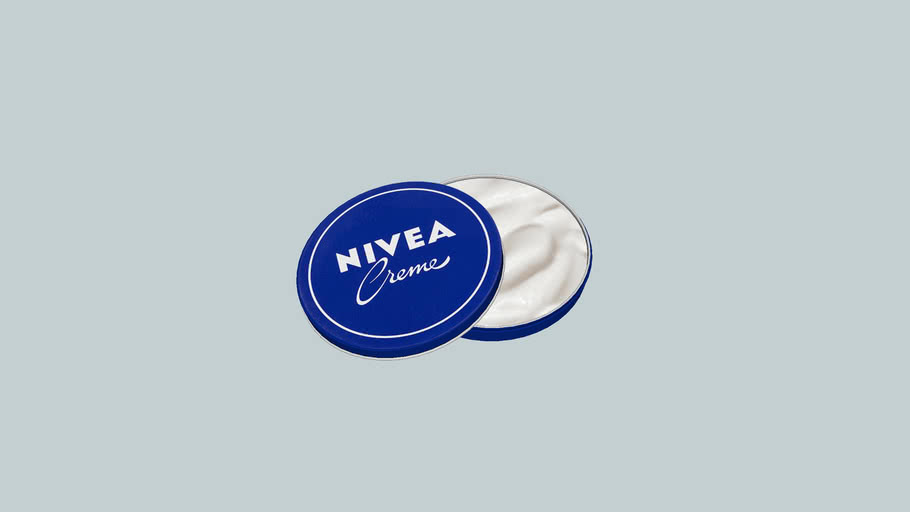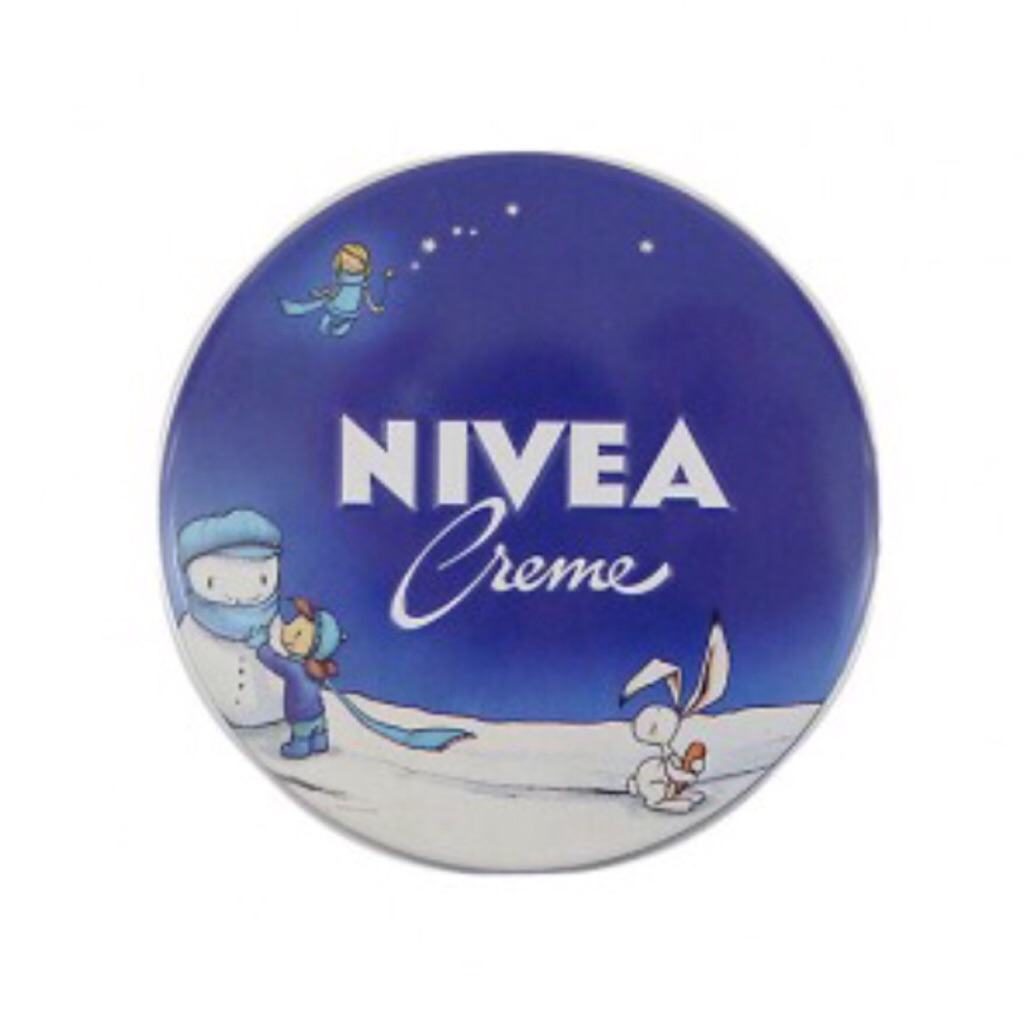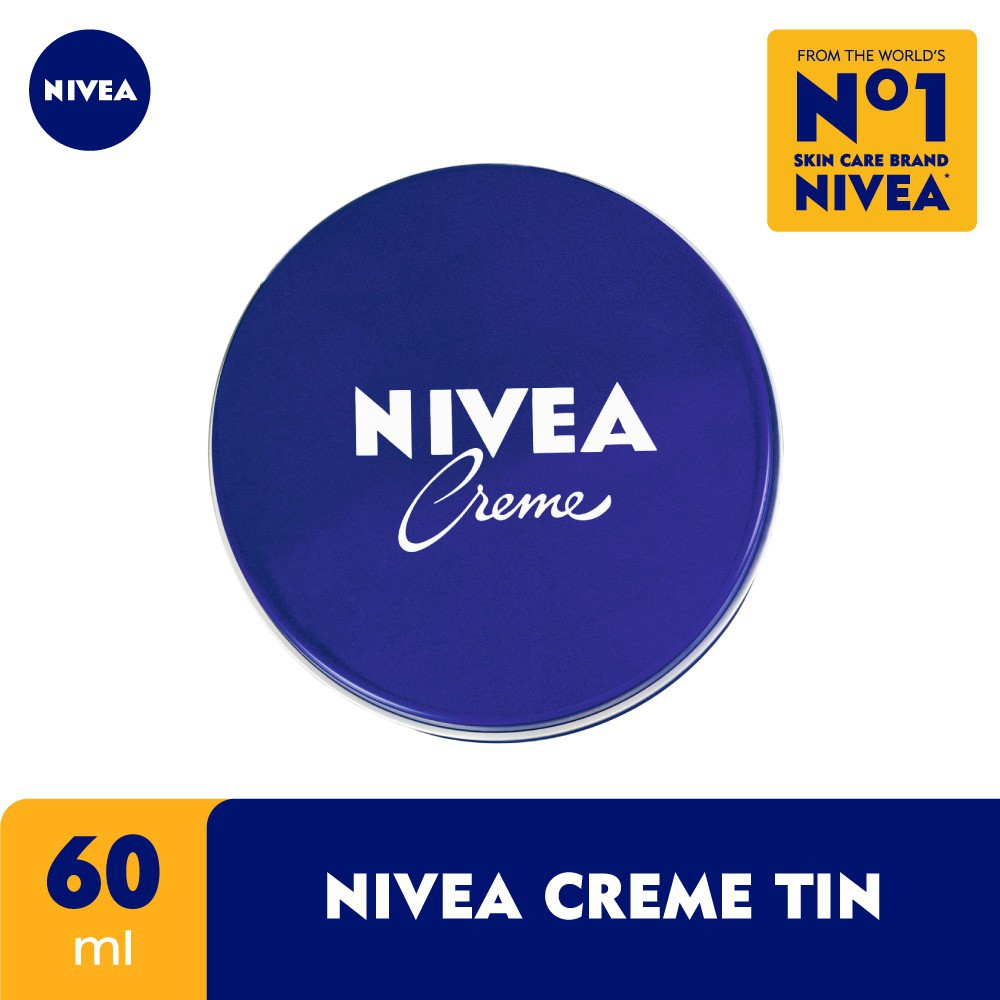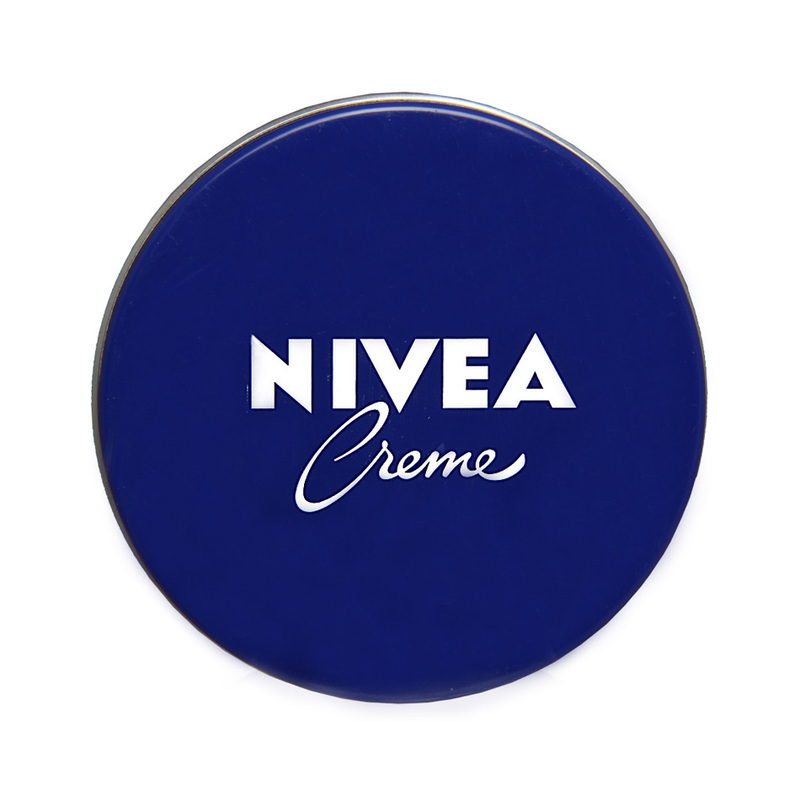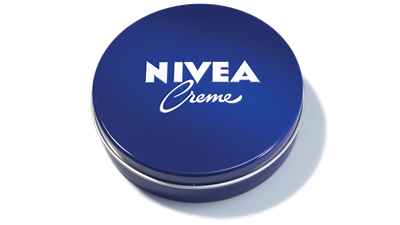
Nivea Creme Font
Nivea creme font. NIVEA Creme is a popular day cream and night cream One thick layer and hello smooth skin In this year, appears for the first time, the modern, ornamentfree font 1949 The introduction of the new NIVEA lettering characterizes the design of the brand to this day;. 1959 – For the first time, the word ‘Crème’ in italics was introduced, to give more emotion to the brand. Nivea Font and Nivea Logo Nivea font here refers to the font used in the logo of Nivea, which is a skincare and bodycare brand owned by German company Beisersdorf.
In sale there was cream NIVEA (Latin "white") The original world famous packaging cream is slightly different from the usual for us blue cans The cream is manufactured in the yellow jar, decorated with floral ornaments and ornate font Of course, cream has changed, it's been almost a hundred years!. May 29, 12 Explore NIVEA UK Official's board "NIVEA Soft Glamorous", followed by 1290 people on See more ideas about nivea, fashion, style. NIVEA Creme Swiss Anniversary Edition packaging This design combines the Bauhaus style with a typography in the style of Swiss artists The geometrically designed pattern uses the original Nivea Logo as the basis of the design.
Nivea is a skincare and bodycare brand owned by German company Beiersdorf It was founded in 18 by Paul Carl Beiersdorf The Nivea logo features the Nivea logotype on a blue rectangle and the lettering for the logotype is very similar to a font called Eagle Bold Eagle is a commercial typeface and you can purchase and download the font here. NIVEA Soft First introduced in the UK, then expanded globally in the 1990s, Nivea Soft is a lighter feeling skin cream than the heavier Nivea Creme NIVEA Body Care This is one of the smaller subbrands but it is still growing and expanding in product range. It is a custom font designed for Nivea called, if I remember correctly, "Creme" I cannot remember the name of the woman who designed it, but it is.
1949 – The introduction of the new NIVEA font still shapes the design of the brand to this day 1959 – For the first time, the word “Creme” is written in italics, to give the brand more emotion 1970 – The “blue tin” used to this day was launched on the market The white circle disappeared completely. This alright condition WW2 Era German Nivea creme tin!. Fonts with CHCL (Concealed Handgun Carry License) My everyday carry is a 380 When I’m feeling myself I carry my Glock 43 9mm I’ve had my CCL for 15 years or so In Ga it’s pretty easy to obtain your license meka404, Jan 8, 21 at 1019 AM The Front Porch!.
It is a custom font designed for Nivea called, if I remember correctly, "Creme" I cannot remember the name of the woman who designed it, but it is. Its most famous product is the NIVEA Creme in its iconic blue and round tin In 1911, the NIVEA Creme was launched in the Swiss market The snowwhite color of the cream gave the worldfamous NIVEA brand its name (as "nives" means "white" in Latin) and the cream's formula has been unchanged since its launch. Rosa Nivea File Type Download Nivea font for PC/Mac for free, take a testdrive and see the entire character set Moreover, you can embed it to your website with @fontface support Nivea Font Family Download Free for Desktop & Webfont NIVEA Soft Rosé is the new, exotic way to love your lips.
In the last 14 years, NIVEA has established a robust and effective distribution network, and built strong relationships with consumers and partners In 15, NIVEA established its first manufacturing location in India in Sanand, Gujarat In India, NIVEA is present across various categories like all purpose cream (Nivea crème, Nivea soft etc. En lançant la Creme NIVEA il y plus d’un siècle, nous avons inventé les soins de la peau modernes Aujourd’hui, des millions de personnes à travers le monde avec des peaux radicalement différentes font confiance à la marque NIVEA. Digital NIVEA Second Skin Project for Nivea by Leo Burnett Madrid Christmas is a time for love and affection, and what better way to to show it than with.
Nivea Font and Nivea Logo Nivea font here refers to the font used in the logo of Nivea, which is a skincare and bodycare brand owned by German company Beisersdorf. I don’t have a modern example to show it with but from what I can remember the main font for NIVEA CREME hasn’t changed a bit Thanks for having a look guys!. NIVEA Soft First introduced in the UK, then expanded globally in the 1990s, Nivea Soft is a lighter feeling skin cream than the heavier Nivea Creme NIVEA Body Care This is one of the smaller subbrands but it is still growing and expanding in product range.
Nivea is basically a German body care brand owned by the Beiersdorf Global AG It was founded by Paul Carl Beiersdorf since 28 March 18 This brand has now operated a large number of outlets in 94 countries globally. But we will be introducing smaller packs of Nivea Creme and Nivea Softs which move fairly fast in smaller markets We plan to launch them in a bigger way this winter" The company today launched its sunscreen Nivea Sun that is priced from Rs 199 to Rs 399. Just another site nivea creme face Posted on January 12, 21 by January 12, 21 by.